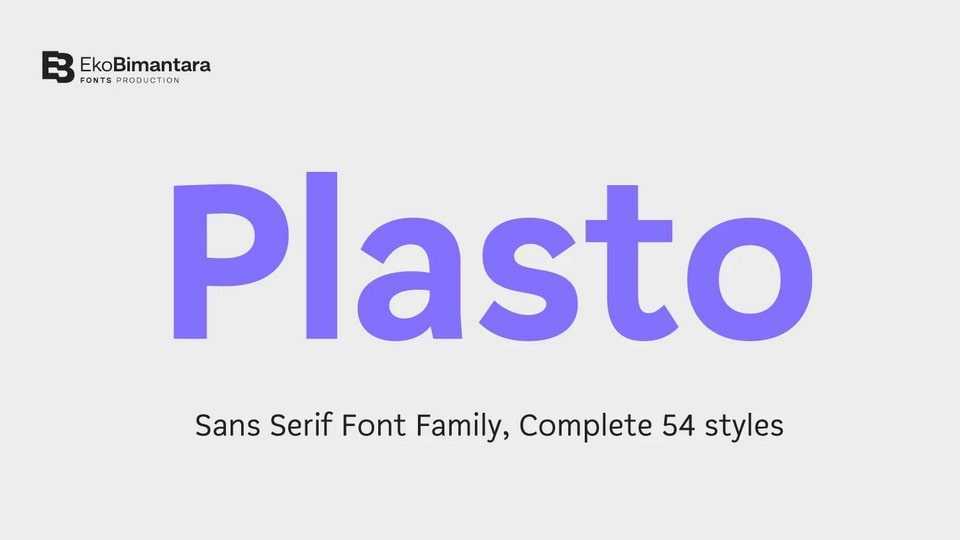
Download Plasto font, a complete grotesk sans serif typeface. Plasto fits for various design spaces for both informal or functional purposes, for large display and also small text.